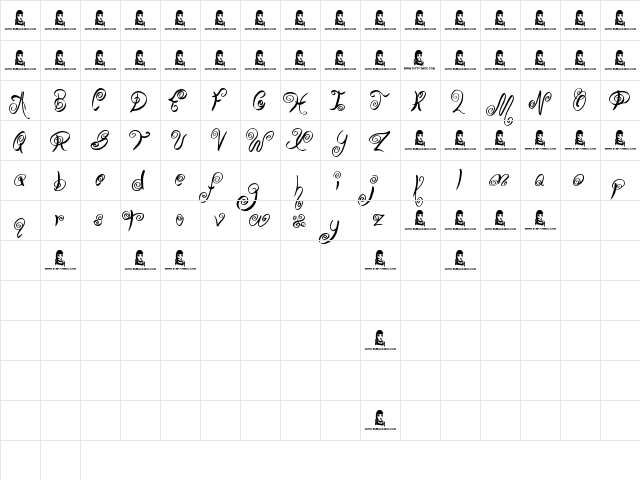
Swirly Shirley Regular
Design Context for Swirly Shirley Typeface
Swirly Shirley is built around its visual character rather than neutral utility — its distinctive forms are designed to make an impression at display sizes.
Font Pairing: Pair with a clean neutral sans-serif for body copy to let Swirly Shirley's character lead without overwhelming the composition.
Pro Tip: Treat Swirly Shirley as the centrepiece of your typographic hierarchy. One strong heading set in a decorative face can carry an entire layout.